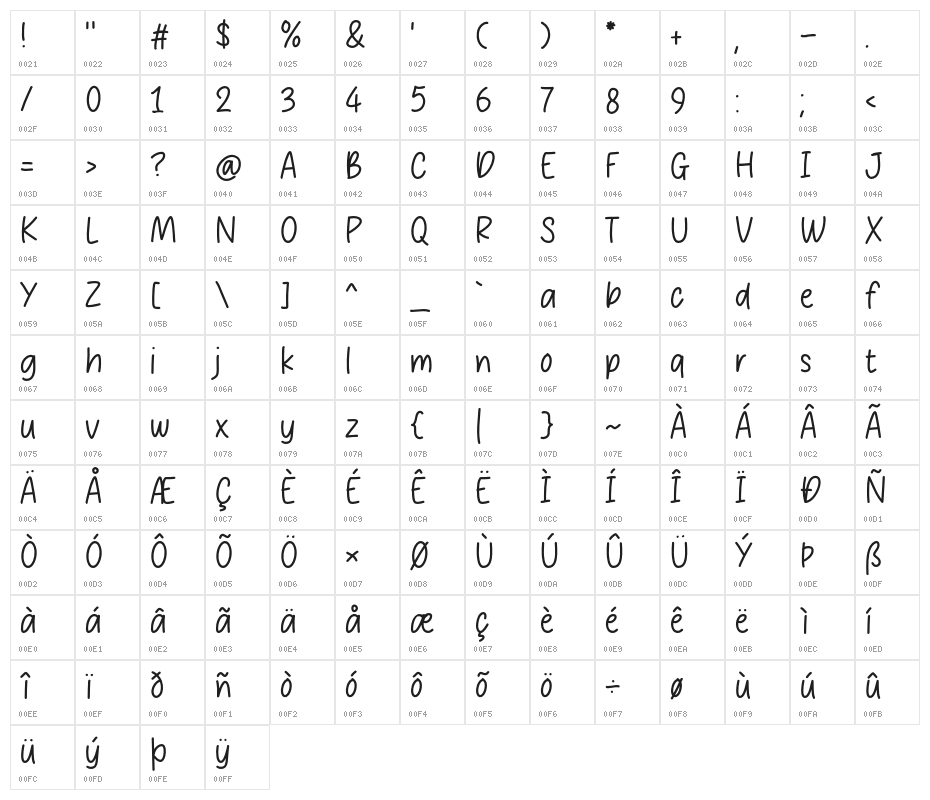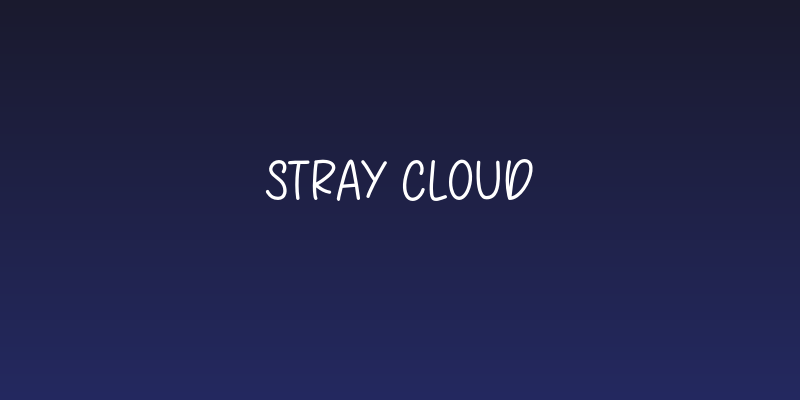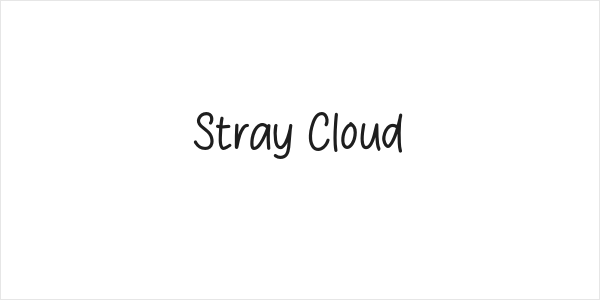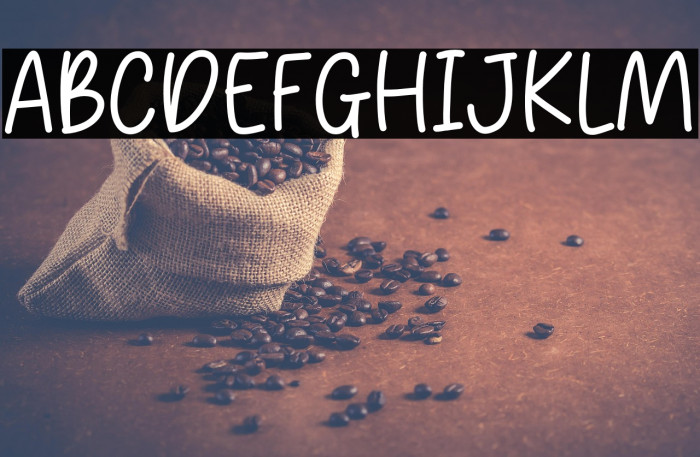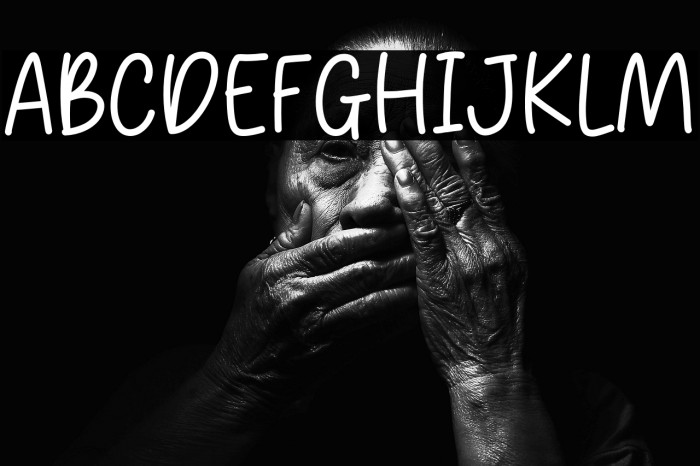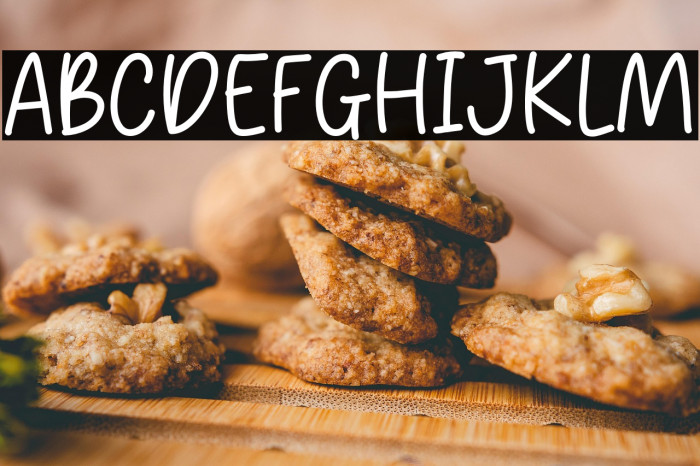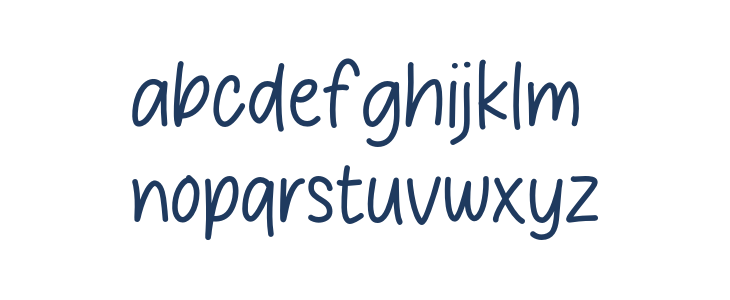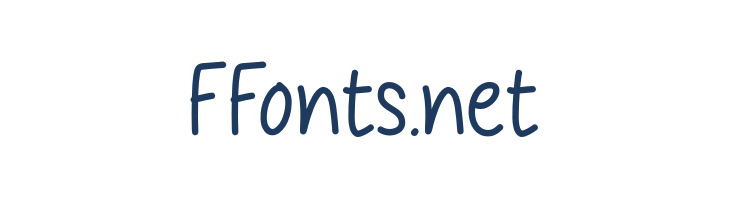
Stray Cloud Font
Stray Cloud Description
This font features a playful and casual handwritten style, characterized by its smooth, rounded strokes and informal appearance. The letters are slightly slanted, giving it a dynamic and lively feel. The uppercase and lowercase letters maintain a consistent flow, with rounded edges that enhance its approachable and friendly look. The numerals and special characters are crafted with the same playful touch, making them blend seamlessly with the alphabet. This font is ideal for projects that require a personal and informal touch, such as greeting cards, invitations, or playful branding.
| Overall Style | Casual, Playful |
| Use Case | Headlines, Informal text, Branding |
| Proposed Projects | Greeting cards, invitations, playful branding, children's books. |